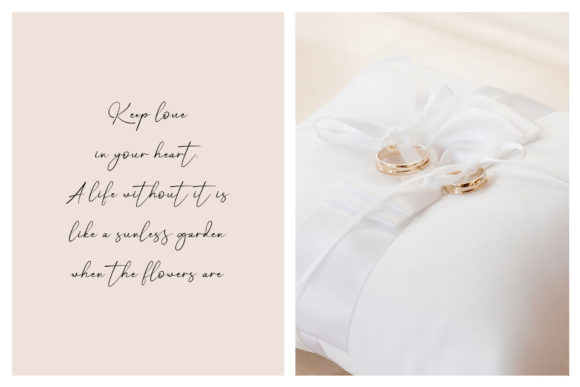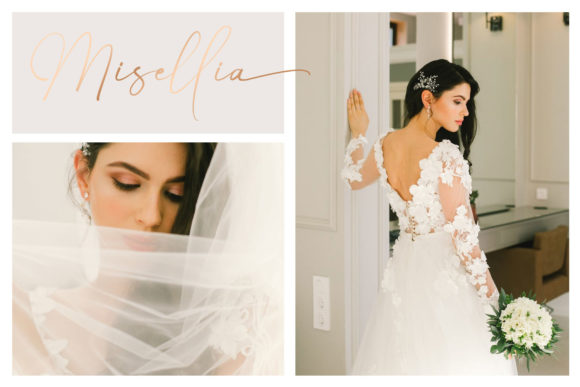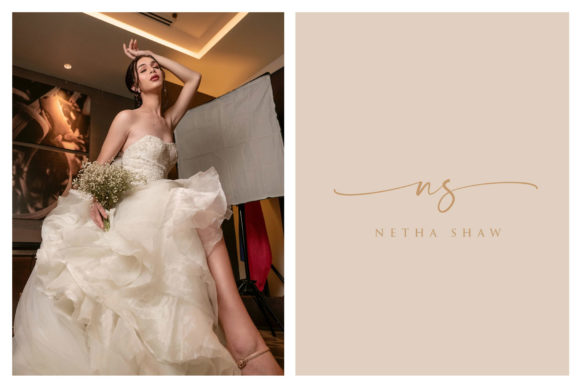
Introduction to Roshintta Font
Roshintta is an exquisite handwritten font, masterfully designed to become a true favorite.
Key Features of Roshintta Font
Why Choose Roshintta Font?
Roshintta Font offers exceptional quality and versatility, making it a valuable addition to your design toolkit. Whether you’re creating for personal projects or commercial use, Roshintta Font delivers professional results.